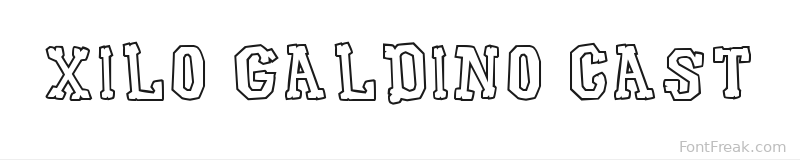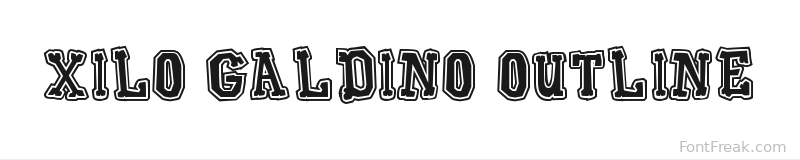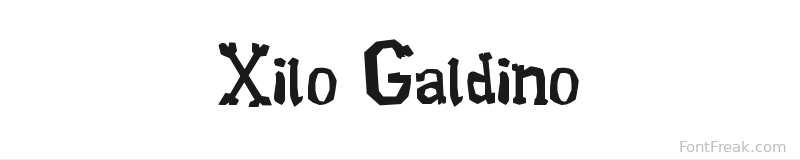
Xilo Galdino
About Xilo Galdino
Xilo Galdino is a unique display typeface designed by Galdino Otten in 2009. This font stands out with its playful and slightly quirky character, making it an excellent choice for projects that aim to capture attention. Featuring a bold, outlined style, the Xilo Galdino font has a distinctive stroke weight that varies throughout the characters, providing a sense of dynamism and energy. Its decorative elements include irregular edges and playful contours, which lend a whimsical touch to any design. The generous spacing between letters enhances readability while maintaining its artistic flair.
This font is particularly well-suited for a variety of creative applications. It shines in wedding invitations, where its charming design can evoke a sense of celebration and joy. Additionally, Xilo Galdino works wonderfully on movie posters, adding a cinematic flair that draws the eye. It also serves as an eye-catching choice for restaurant menus, helping to create a memorable dining experience. For graphic designers aiming to make a statement, this typeface is perfect for branding projects that seek to convey a fun and modern identity. Content creators will find it useful for social media graphics and promotional materials that require a distinctive visual style.
The target audience for the Xilo Galdino font includes graphic designers, small business owners, and content creators who desire a font that stands out while remaining versatile. With its unique characteristics and free licensing, the Xilo Galdino font free download is an opportunity not to be missed. This typeface stands out due to its playful design and versatility, making it an excellent addition to any designer's toolkit, ensuring that your projects leave a lasting impression.